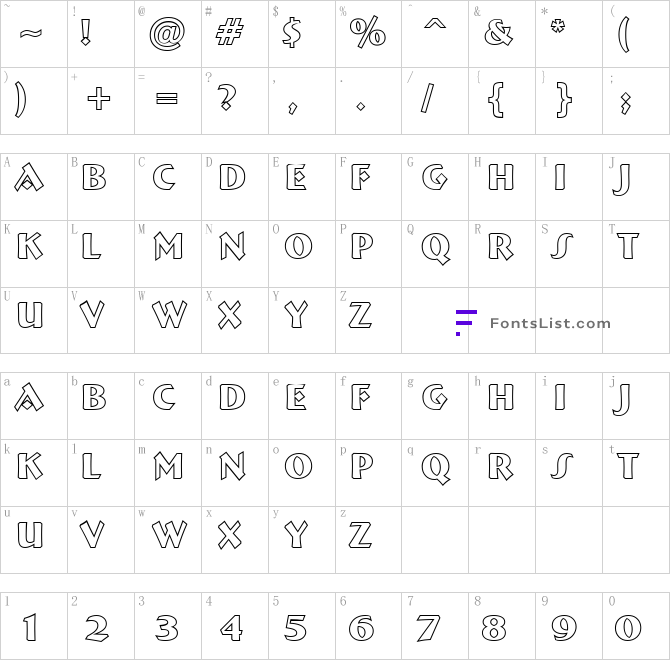
- Font Name:a_BremenBldOtl
a_BremenBldOtl.ttf is a very beautiful artistic font, a_BremenBldOtl.ttf is widely used in the design and printing of various books and pictures,a_BremenBldOtl.ttf has a strong visual impact,a_BremenBldOtl.ttf is a commonly used font in newspapers, magazines and books, and is used in posters, e-commerce Poster design, store design, logo design, font design and other fields.a_BremenBldOtl.